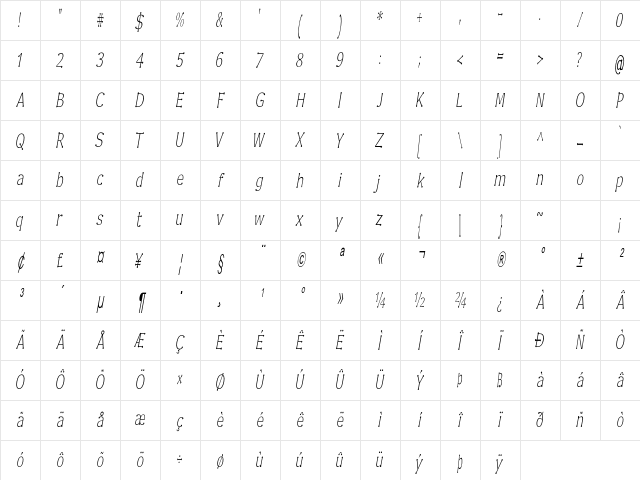
Enspar Extra-condensed Italic
Style: Extra-condensed Italic
Enspar Family
Enspar Extra-condensed Italic
Design Context for Enspar
Enspar is a composed and adaptable typeface that performs quietly and consistently across a wide range of design contexts. The slanted form adds forward momentum and visual energy. Its narrow stance lets it pack a punch even in space-constrained designs.
Pro Tip: Use Enspar for emphasis, pull quotes, and subheadings where its slanted energy can add rhythm to the layout.